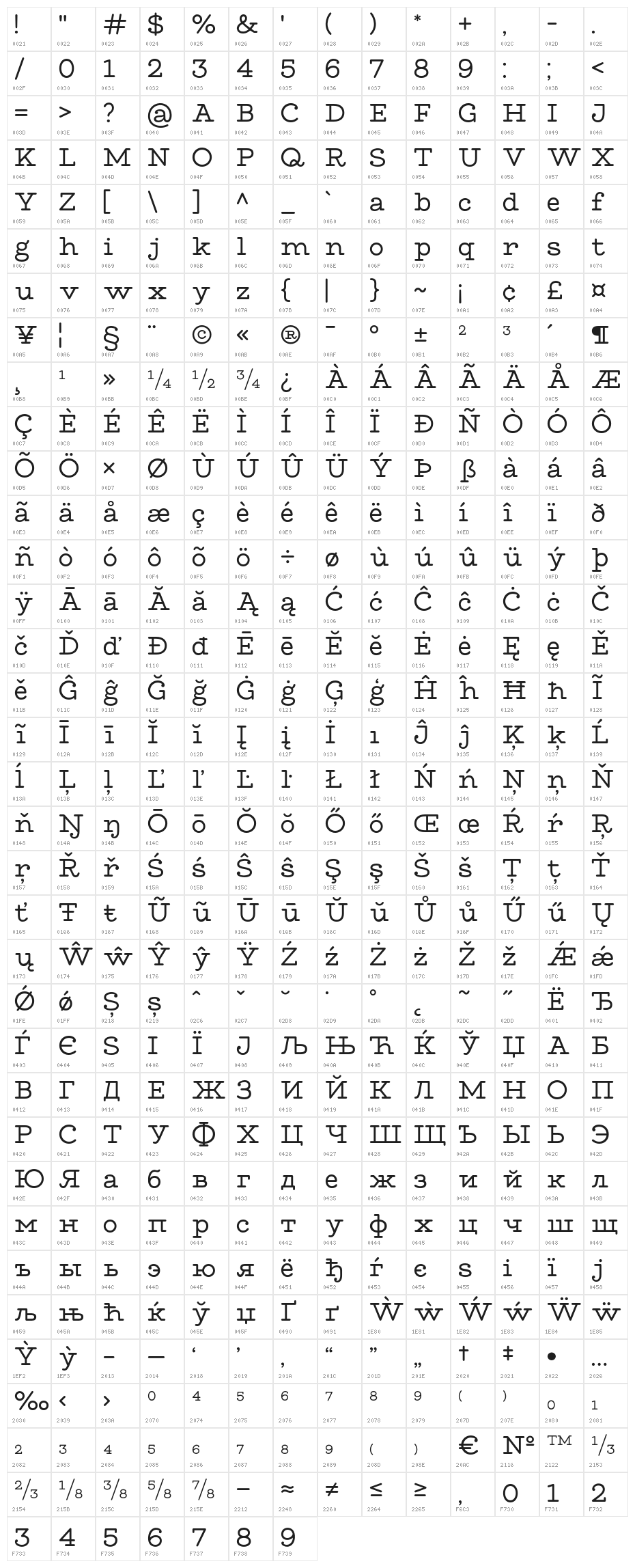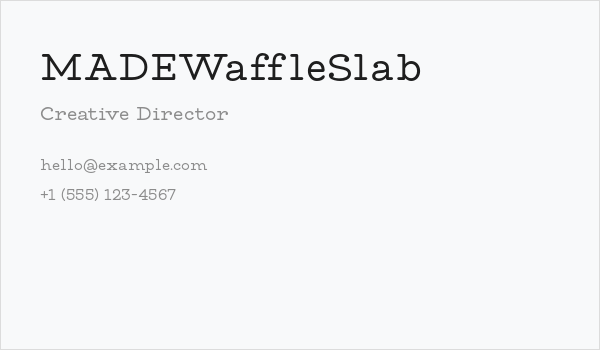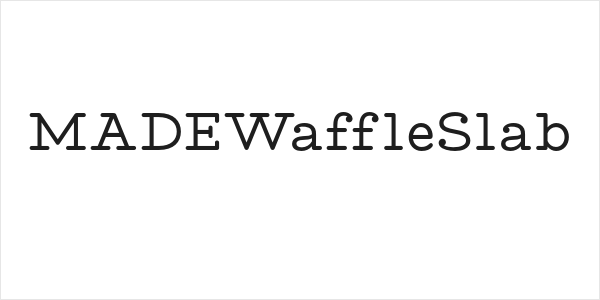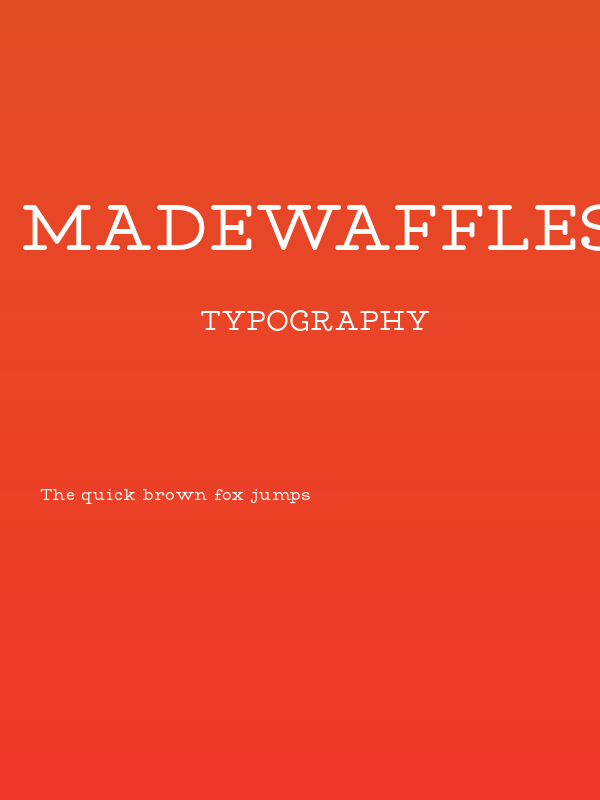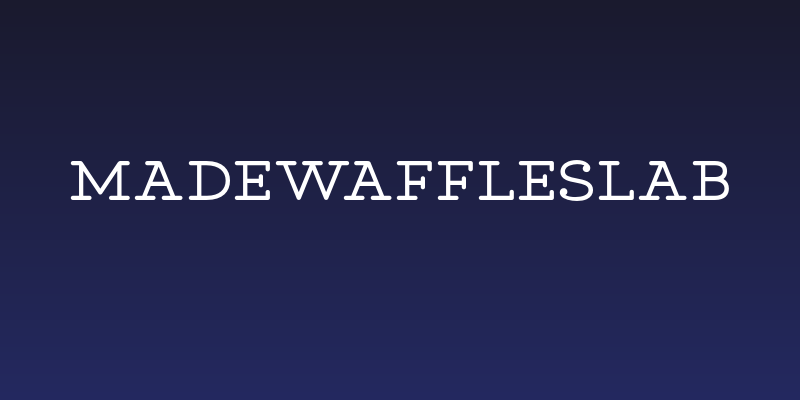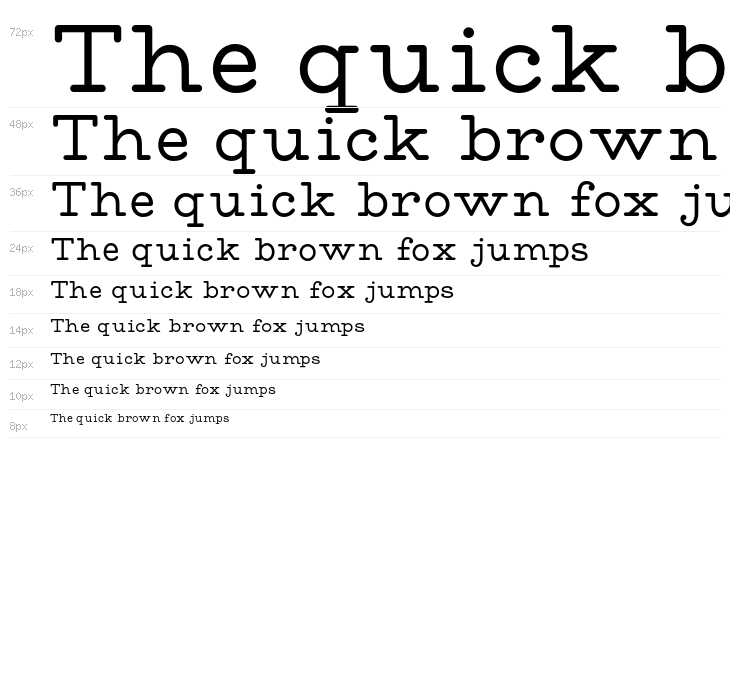
MADEWaffleSlab Font
MADEWaffleSlab Description
This font exudes a classic and robust aesthetic, characterized by its slab serif design. The letters are bold and well-defined, with thick, block-like serifs that give the typeface a strong presence. The uppercase characters are uniform and balanced, while the lowercase letters maintain a consistent style with slightly rounded edges, adding a touch of softness to the overall appearance. The numerals are clear and legible, matching the boldness of the alphabetic characters. Special characters are distinct and well-integrated, ensuring versatility in various design contexts. The font's structure is solid, making it suitable for projects that require a sense of stability and reliability.
| Proposed Projects | Ideal for branding, headlines, posters, and any design project that requires a strong, authoritative typeface. |